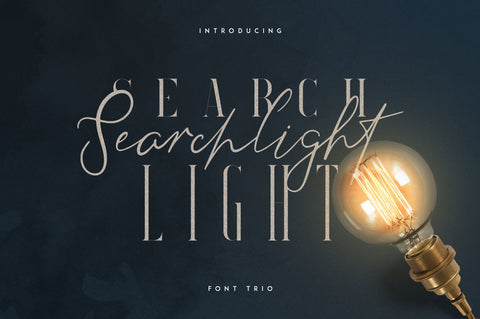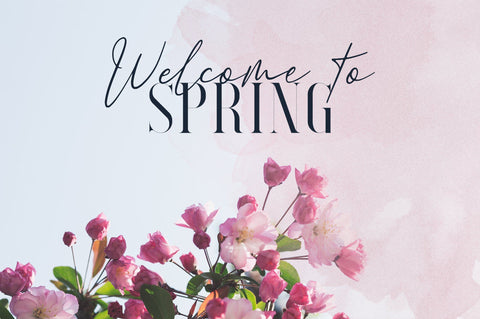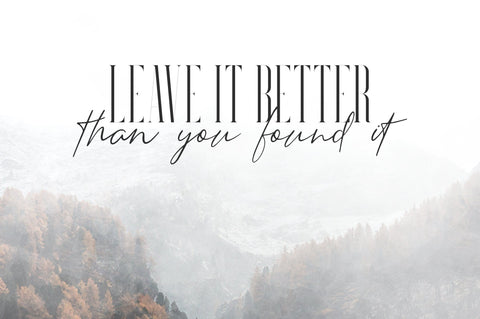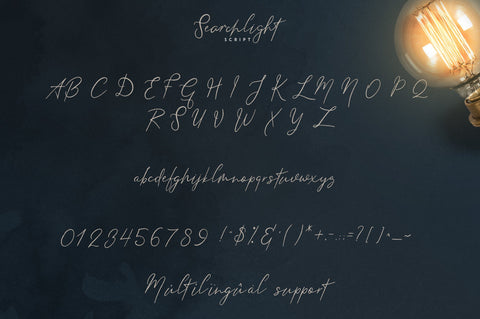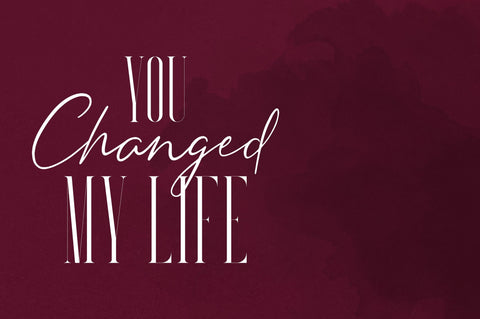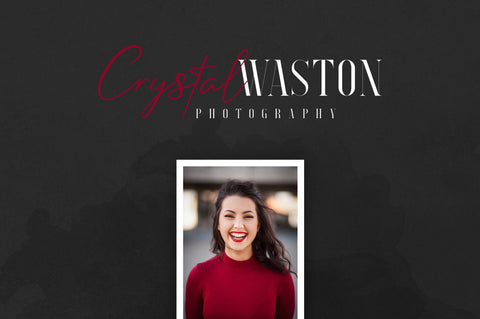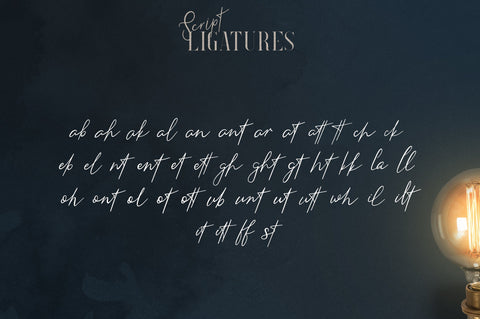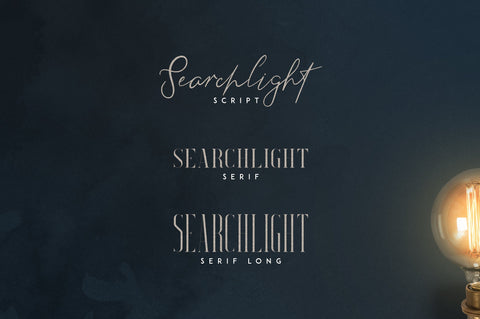
Searchlight - font trio
INTRODUCING Font trio Searchlight
Searchlight is classy, vintage font trio with total of 3 font styles, ligatures and multilingual support. It's a very versatile font that works great in large and small sizes.
Searchlight is perfect for branding projects, home-ware designs, product packaging, magazine headers - or simply as a stylish text overlay to any background image.
- Uppercase,lowercase, numeral,punctuation & Symbol
- Clean
- Classy
- Searchlight Script
- Ligatures for natural feel
- Searchlight Serif
- Searchlight Serif Long